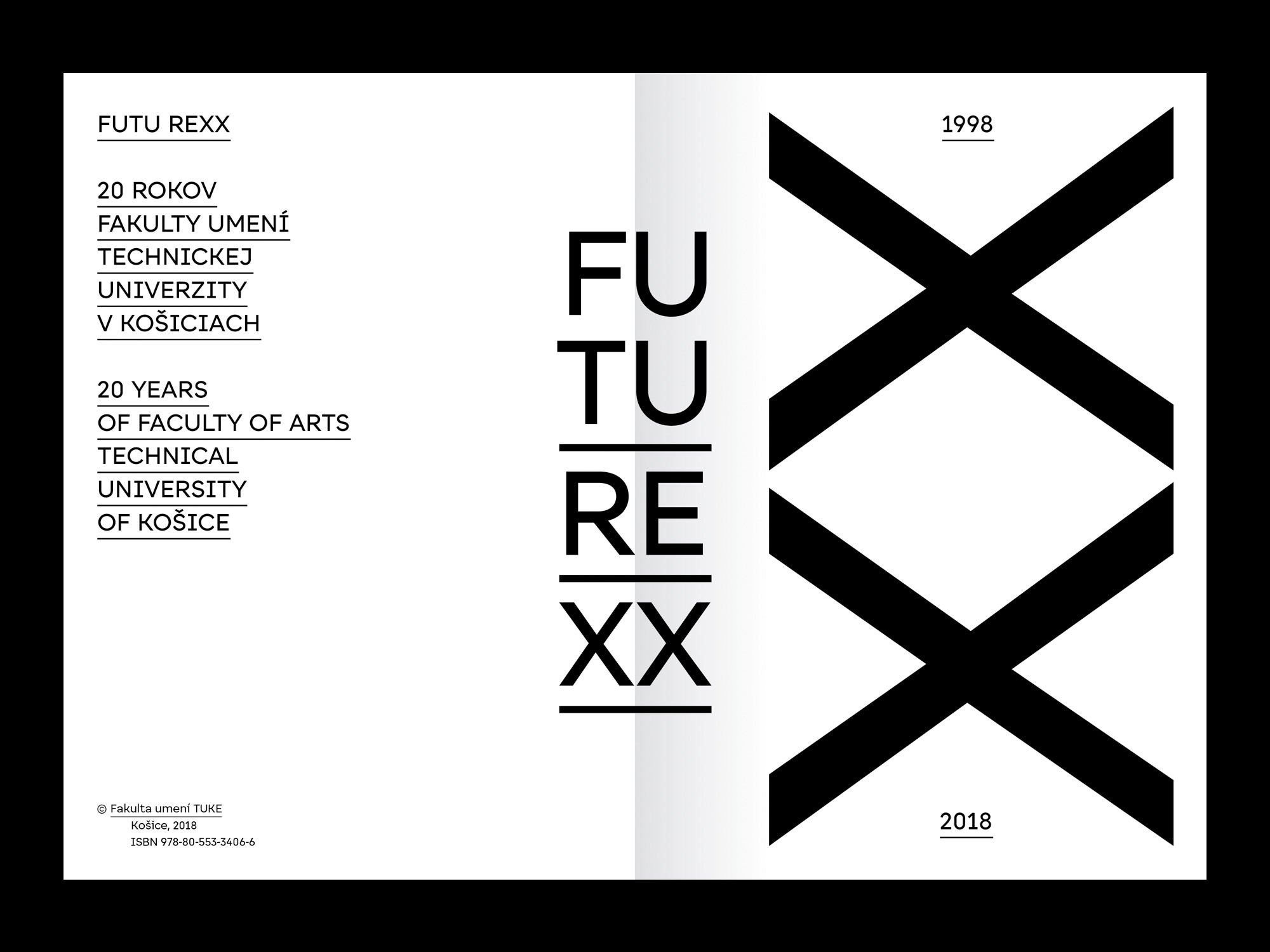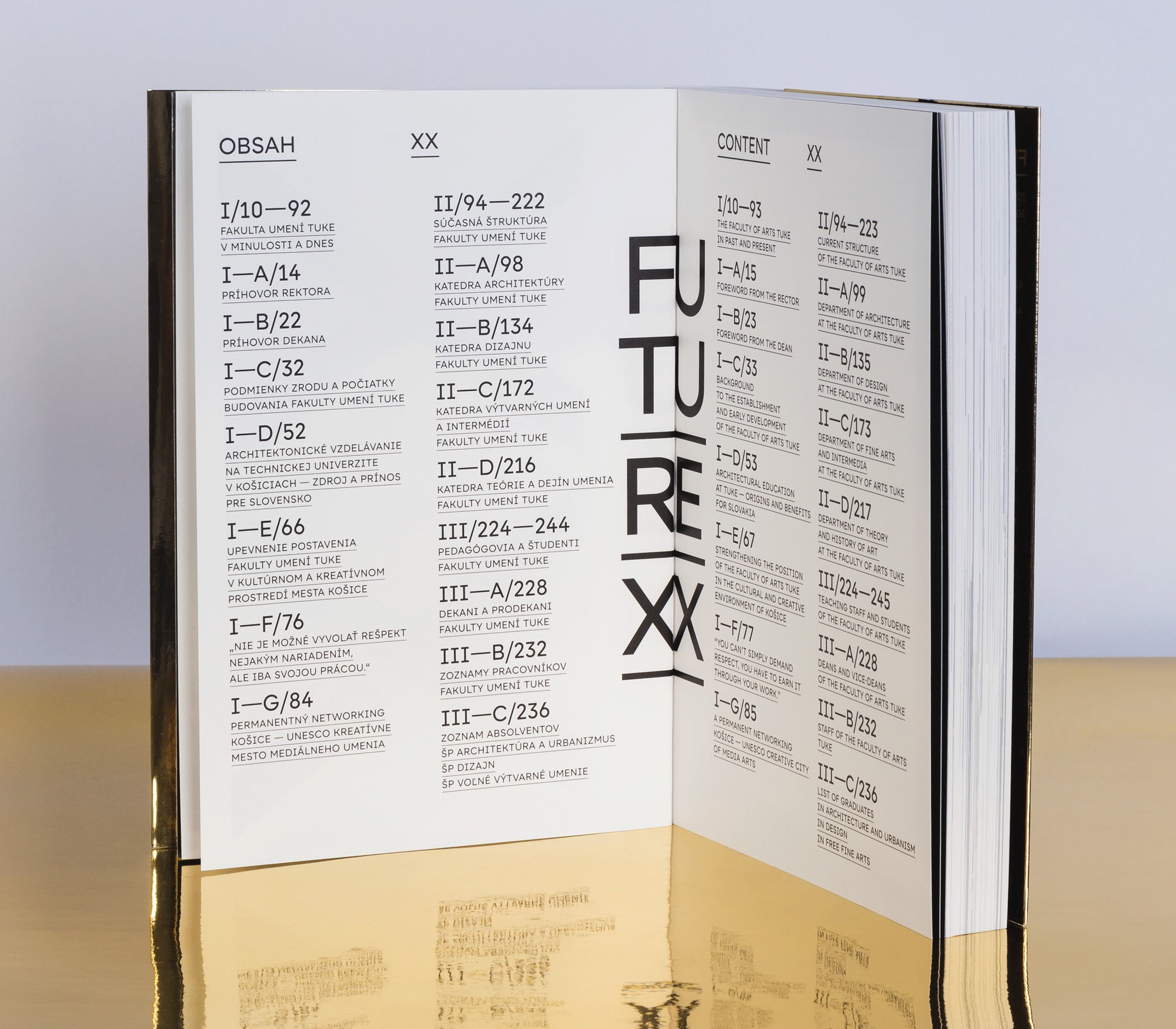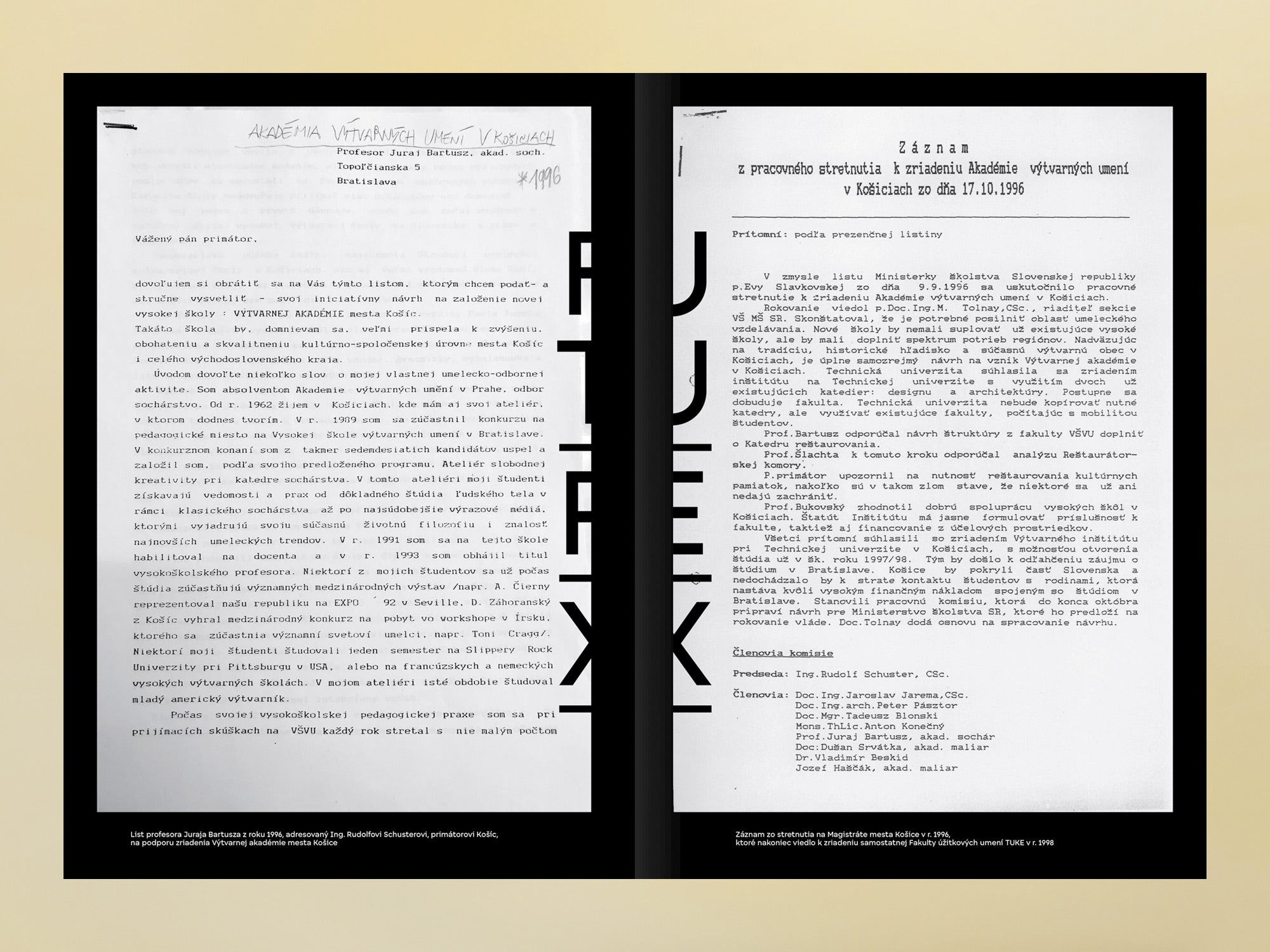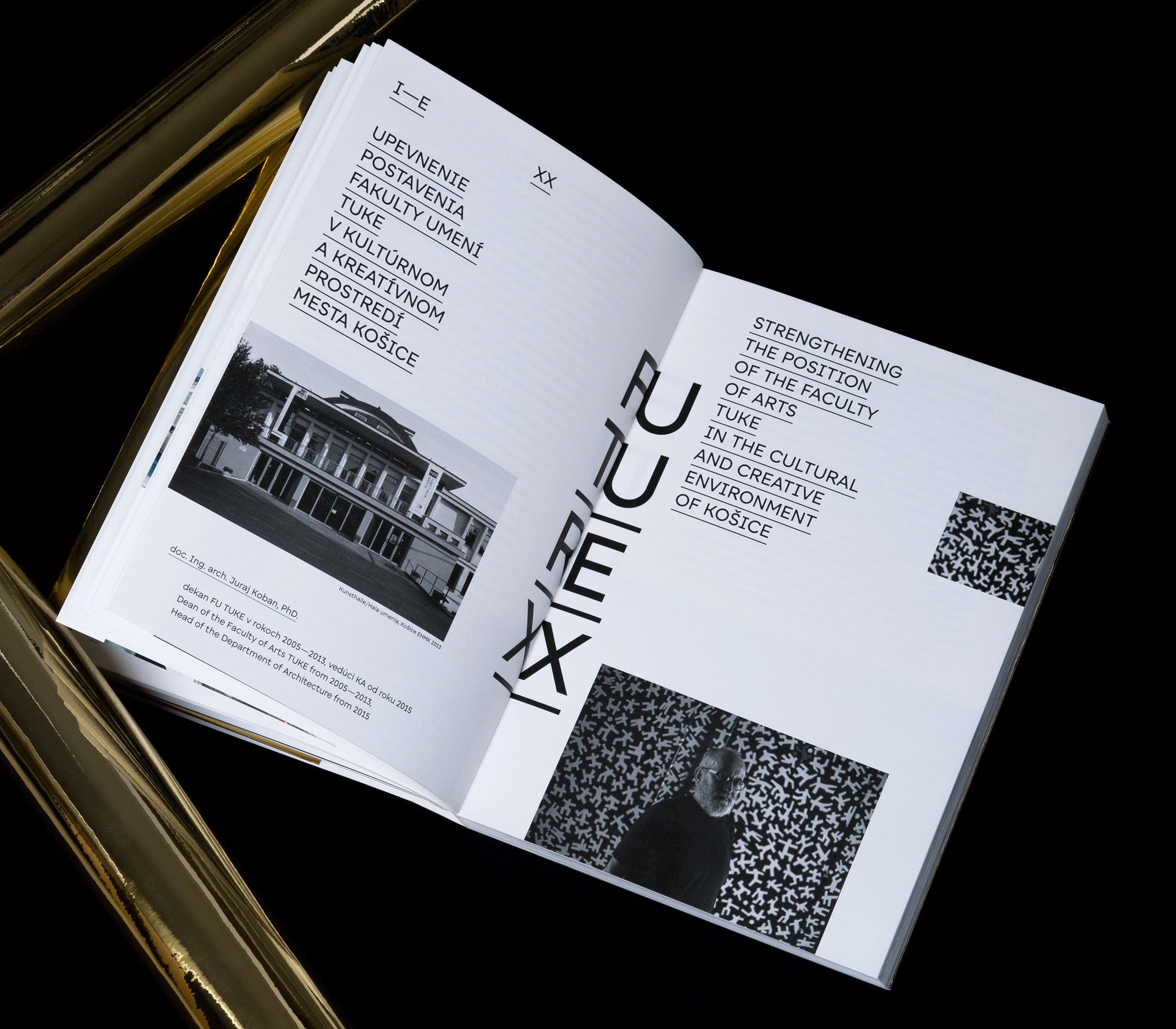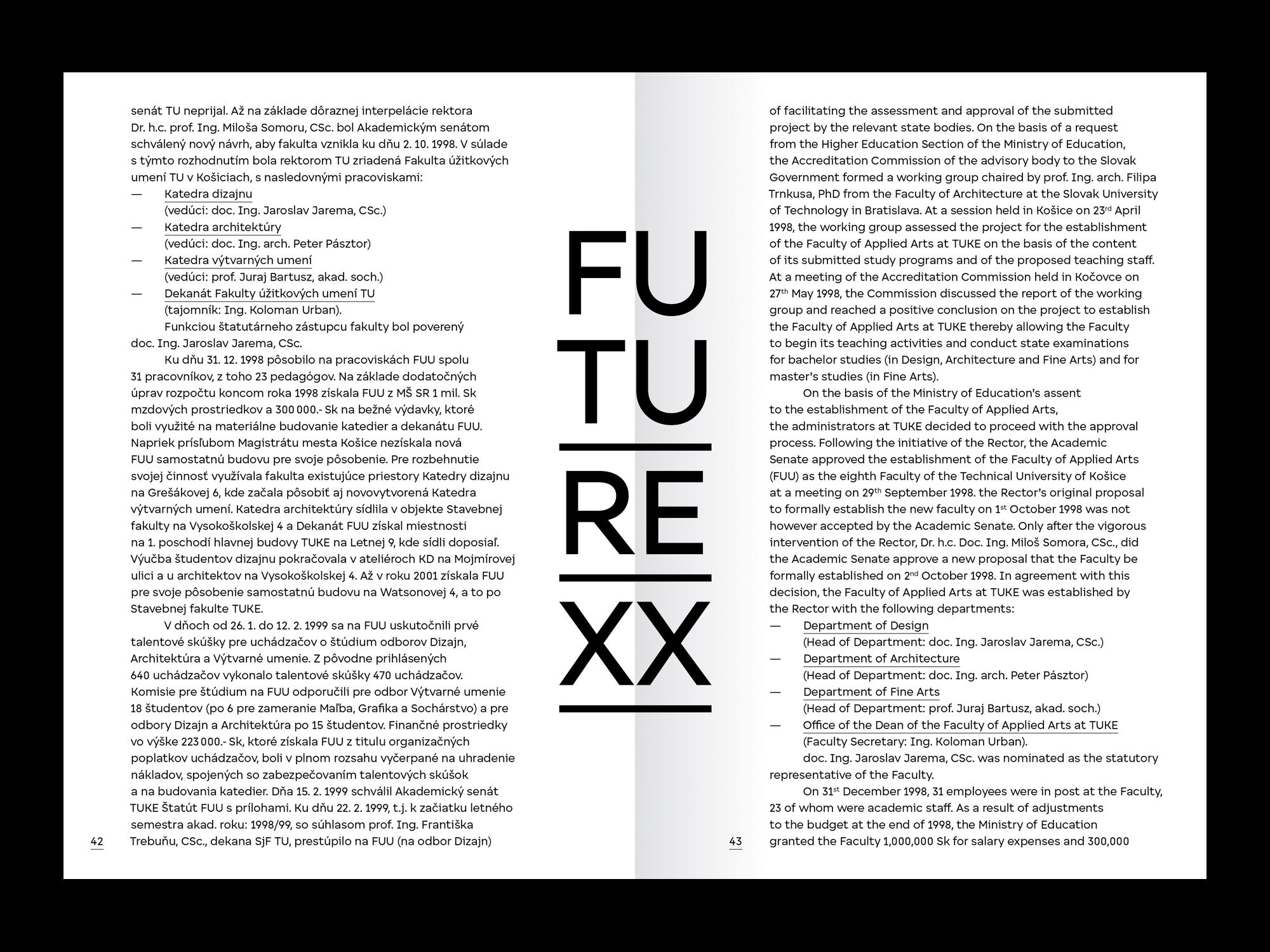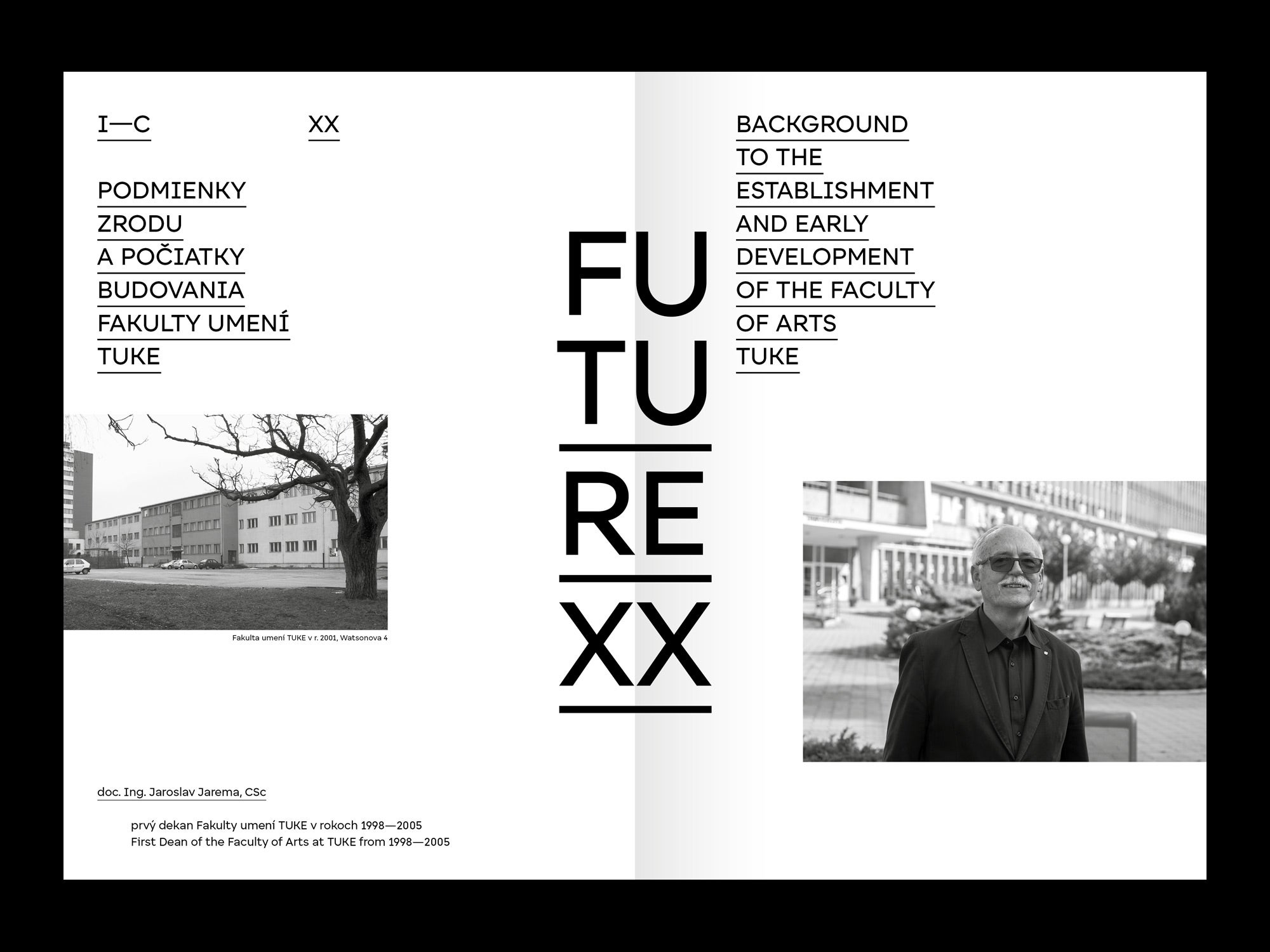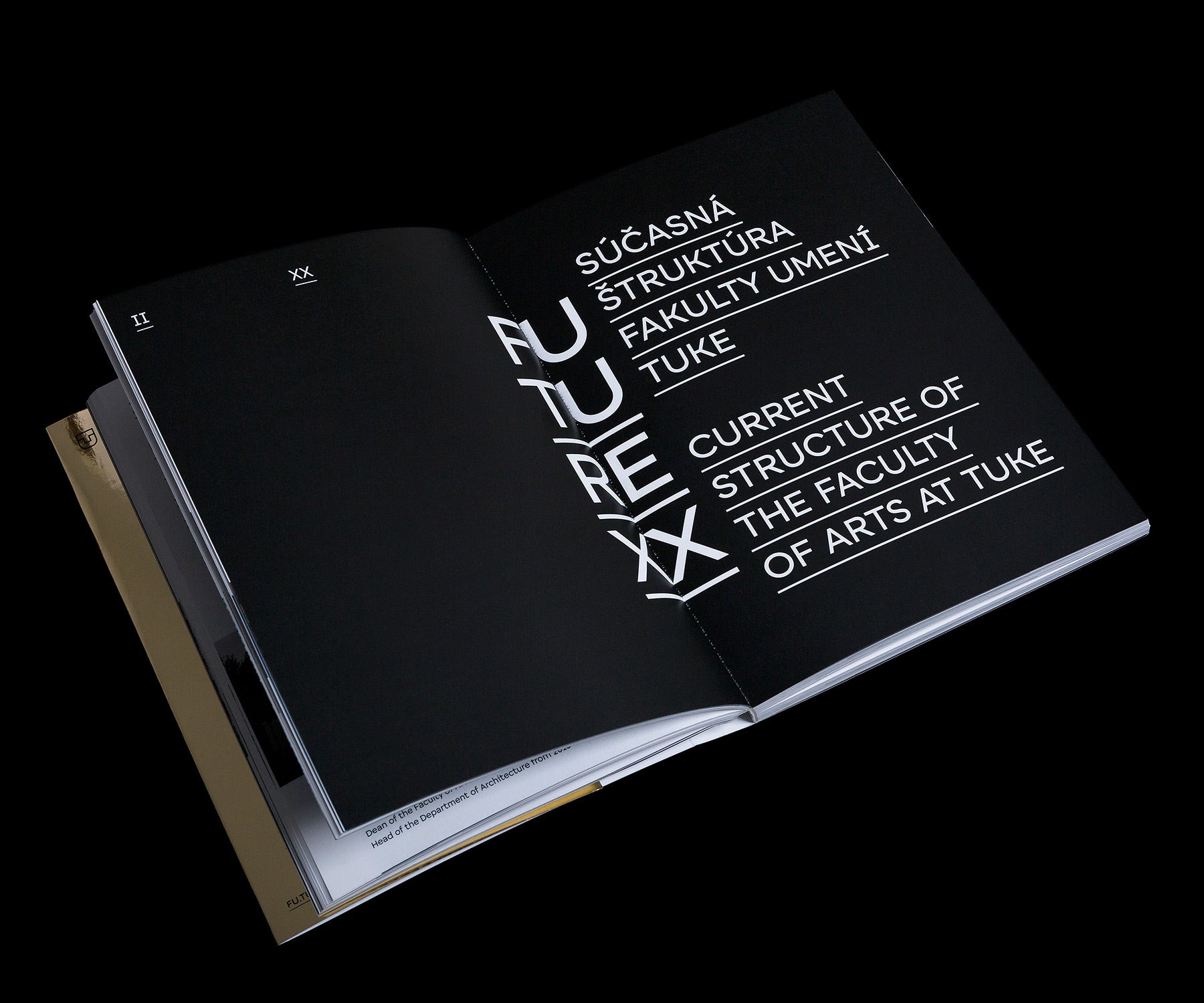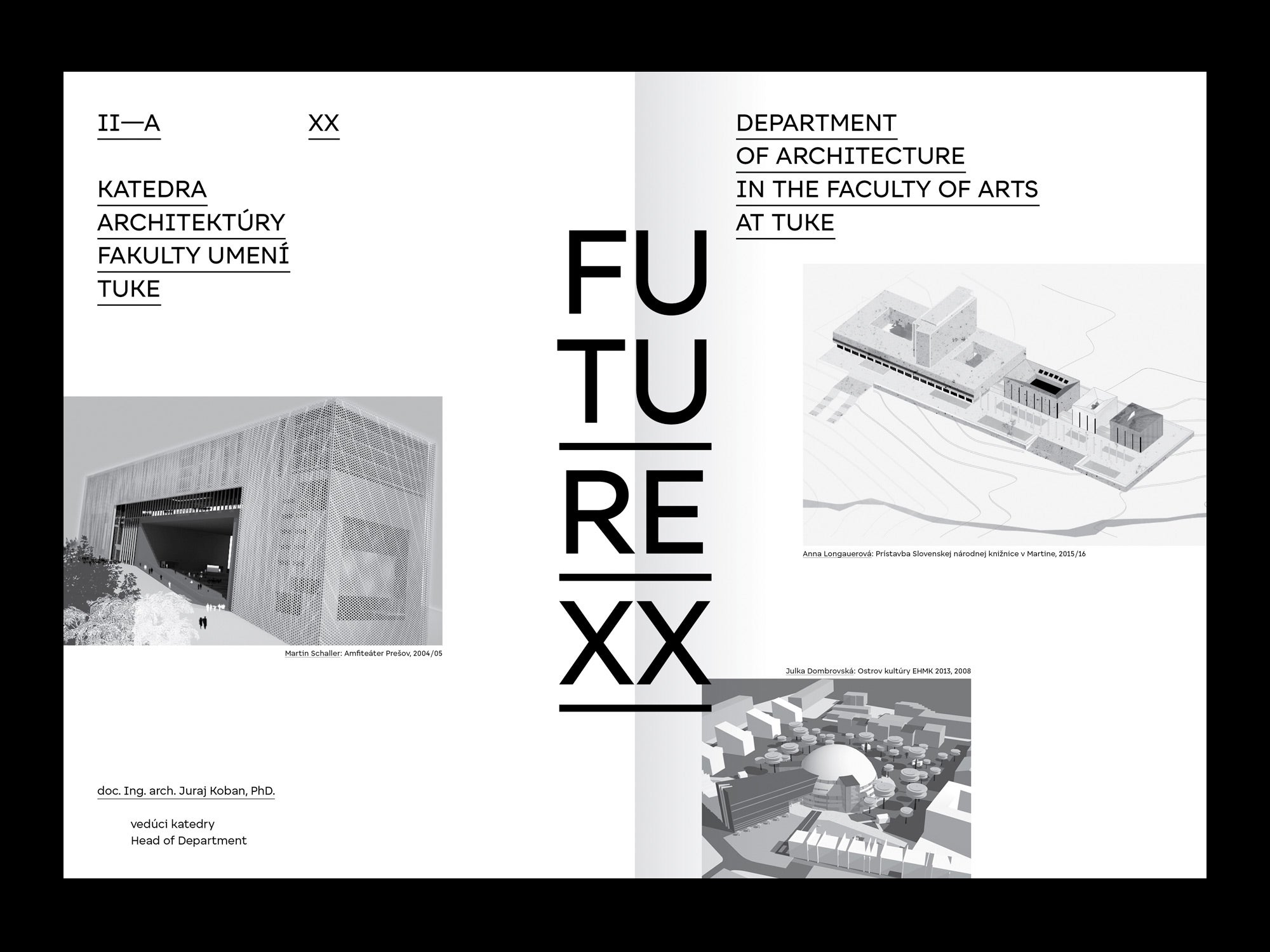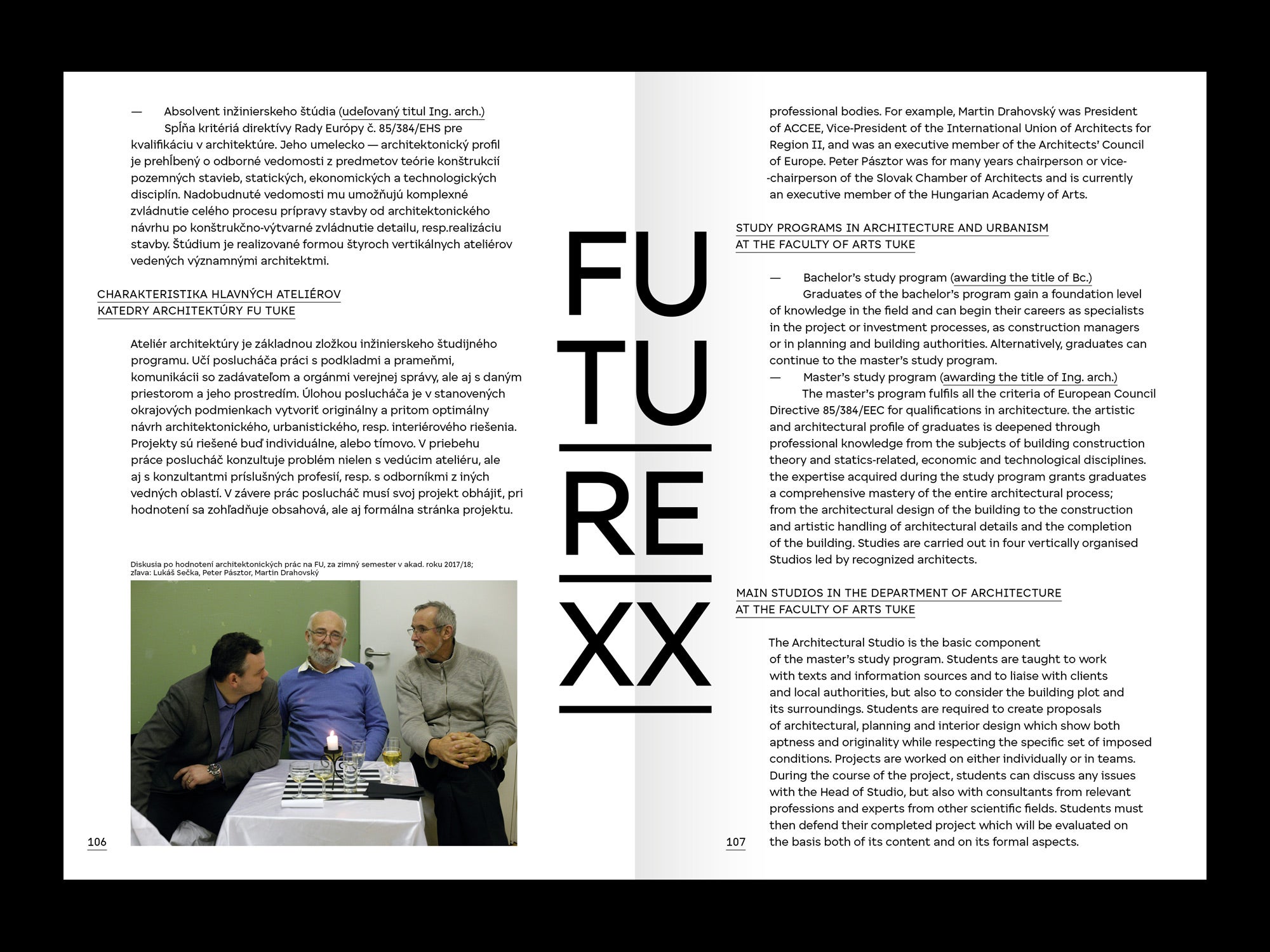
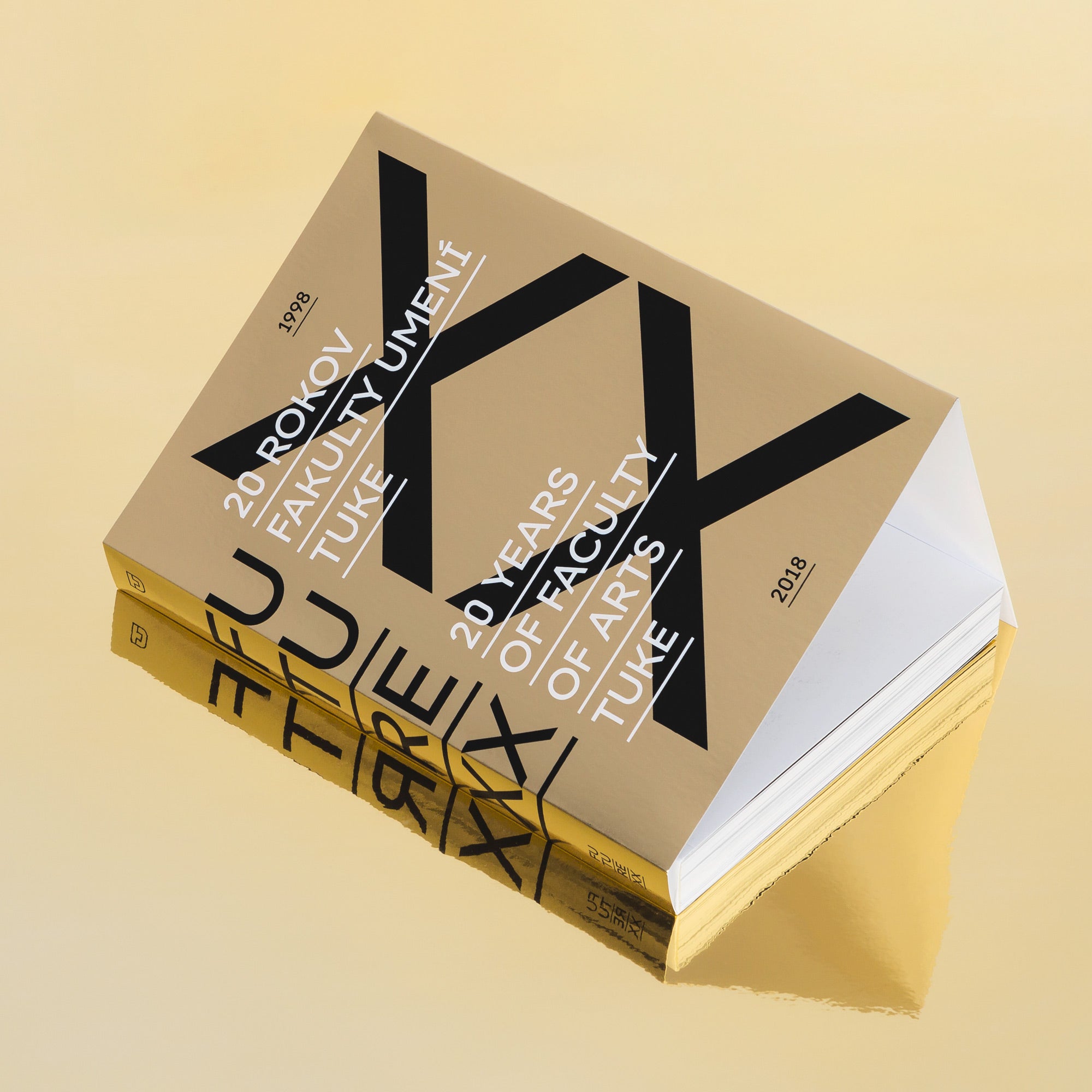
A publication made to commemorate the 20th anniversary of the Faculty of Arts at the Technical University in Košice. The name FUTU REXX is a word play — FU stands for Fakulta Umení — Faculty of Arts, TU is for Technical University, REX is for king and XX symbolises 20 years, and it shows also in the design of the publication: the bold headline (XX — FUTU REXX), mirror-shine gold cover, dynamic typography and an active layout with plenty of pictorial material.
FUTU REXX: 20 rokov Fakulty umení TUKE / 20 years of Faculty of Arts TUKE • edited by: Jaroslav Jarema • paperback • 170 × 240 × 24 mm • 248 pages • typefaces: TUKE • published by: Faculty of Arts, Technical university of Košice, Košice 2018 • photo credits: Diana Dobrescu • design: © Samuel Čarnoký (2018)